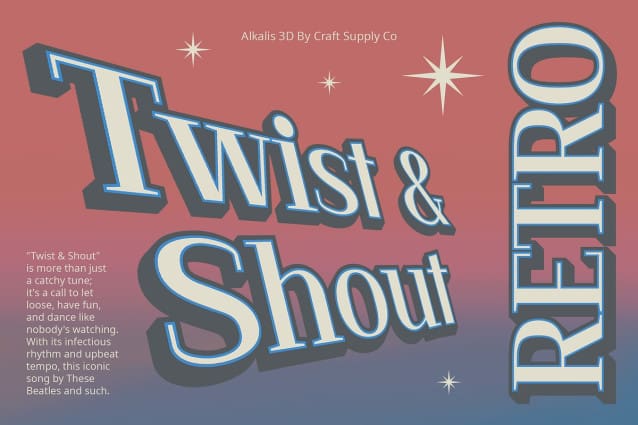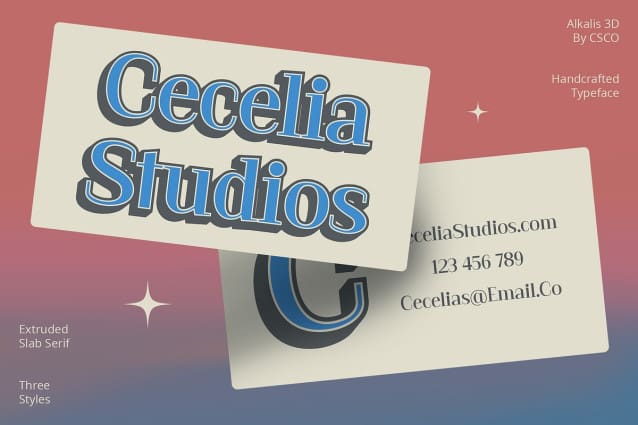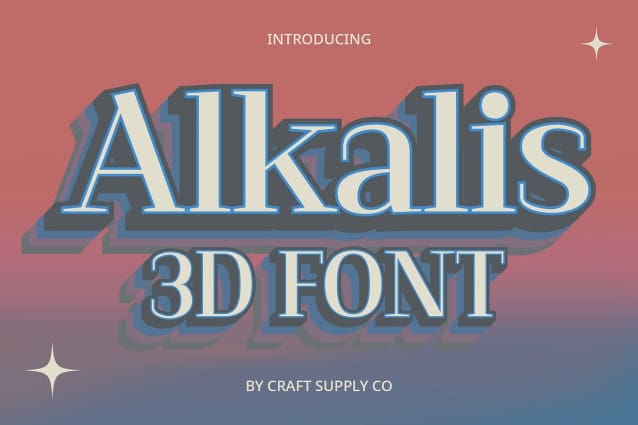
Alkalis 3D Font
Alkalis 3D Font: Elevating Display Typography. High Contrast Serif Alkalis 3D boasts a high contrast serif design that exudes sophistication and elegance. Each letter is meticulously crafted to ensure clarity and readability.
Neat and Tidy Appearance The font maintains a neat and tidy appearance, thanks to its precise lines and clean edges. It radiates professionalism and refinement in every character.
Enhanced with 3D Effect Adding depth and dimension, the font features a captivating 3D effect. This effect elevates its visual impact, making it stand out effortlessly in any display setting.
Ideal for Display Purposes This font is tailor-made for display purposes, where its high contrast, tidy appearance, and 3D effect shine brightest. Whether used in headlines, banners, or signage, it commands attention with its polished look.
Perfect Blend of Elegance and Depth This font combines the timeless elegance of high contrast serif typography with a modern twist of 3D effects. Its refined appearance and captivating depth make it an ideal choice for creating impactful display designs across various mediums.